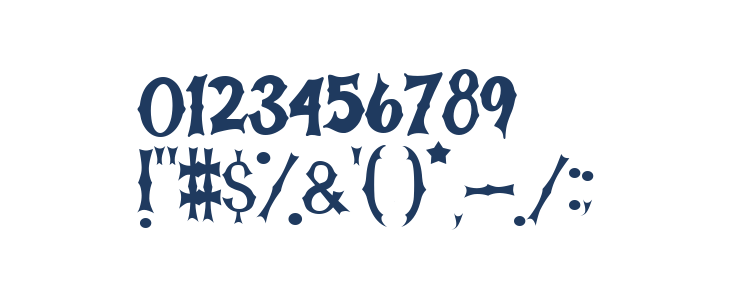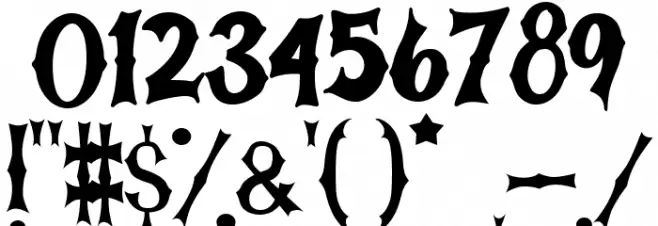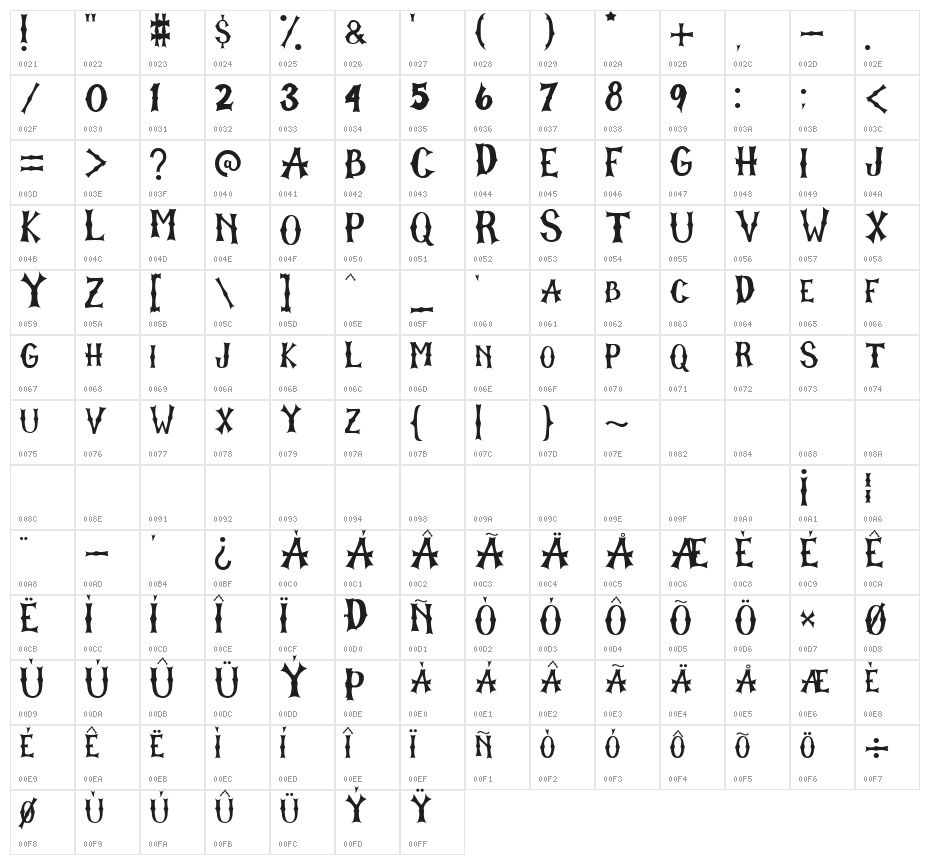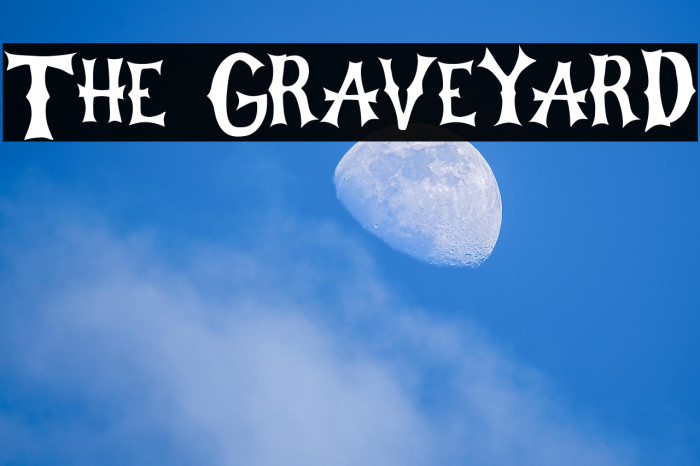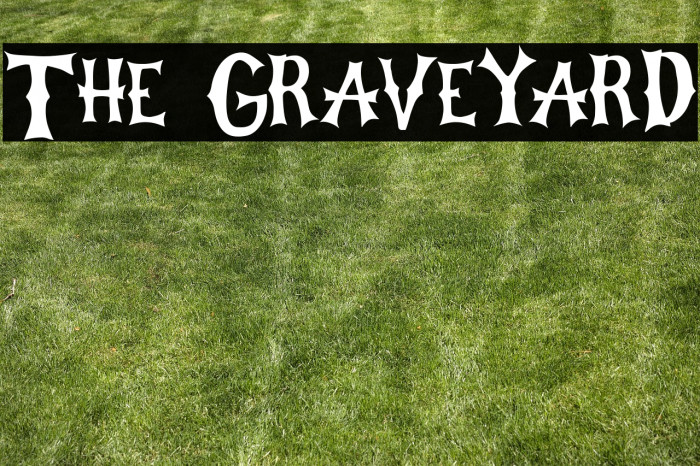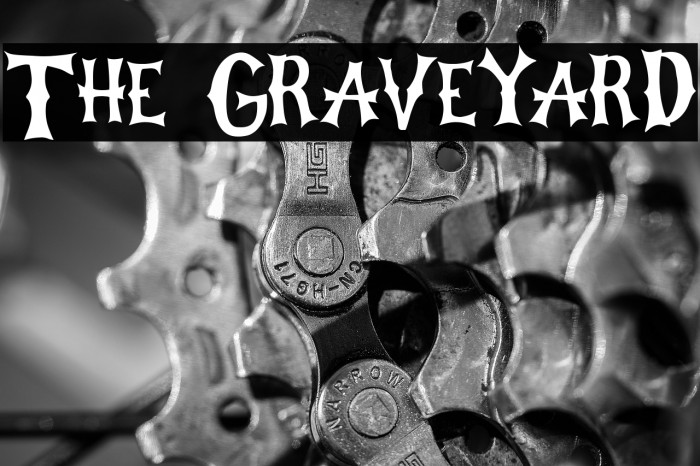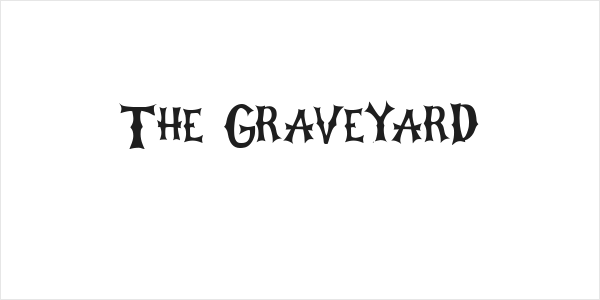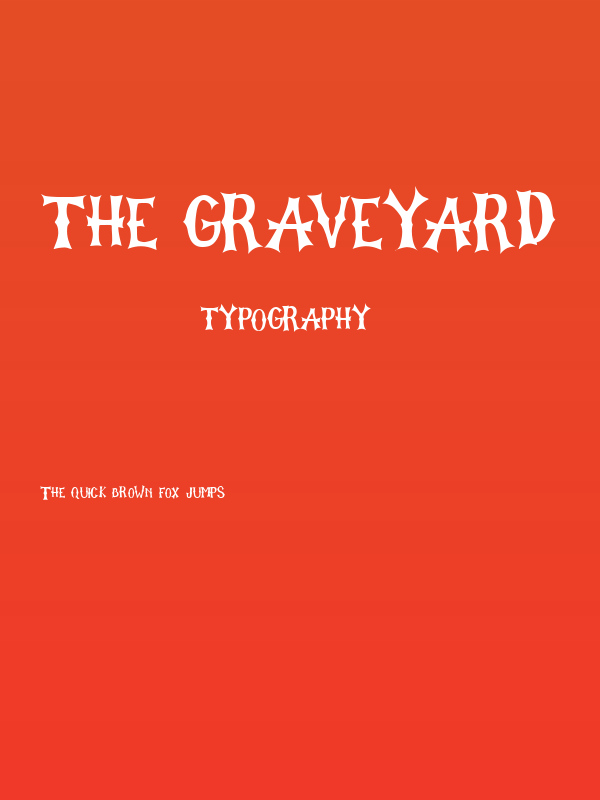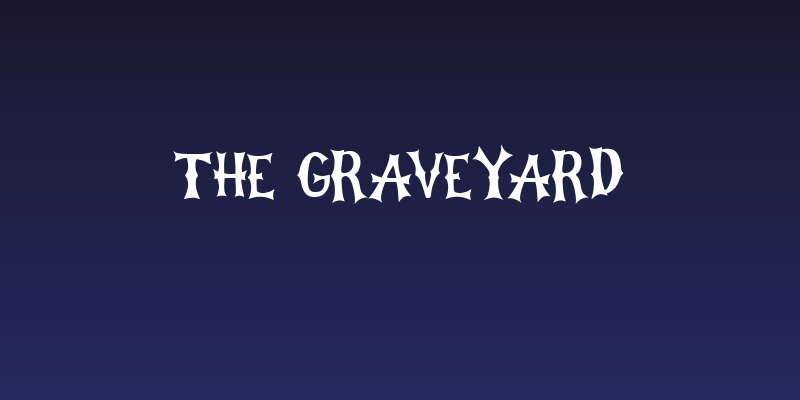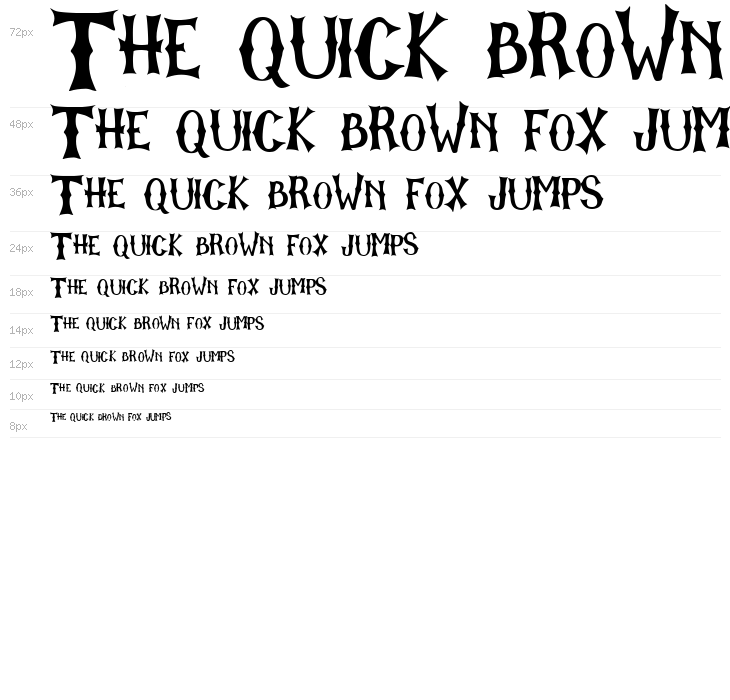
The Graveyard Font
The Graveyard Description
This font features a bold and dramatic style with sharp, pointed serifs and a gothic influence. The characters are highly stylized, with exaggerated angles and a slightly uneven baseline, giving it a hand-drawn appearance. The uppercase letters are particularly striking, with a strong presence that commands attention. The numerals and special characters maintain the same bold and edgy aesthetic, making them suitable for thematic designs. The overall look is reminiscent of classic horror or Halloween themes, making it perfect for projects that require a spooky or mysterious vibe.
| Overall Style | Gothic, Decorative |
| Proposed Projects | Ideal for Halloween-themed designs, horror movie posters, spooky invitations, and decorative signage. |